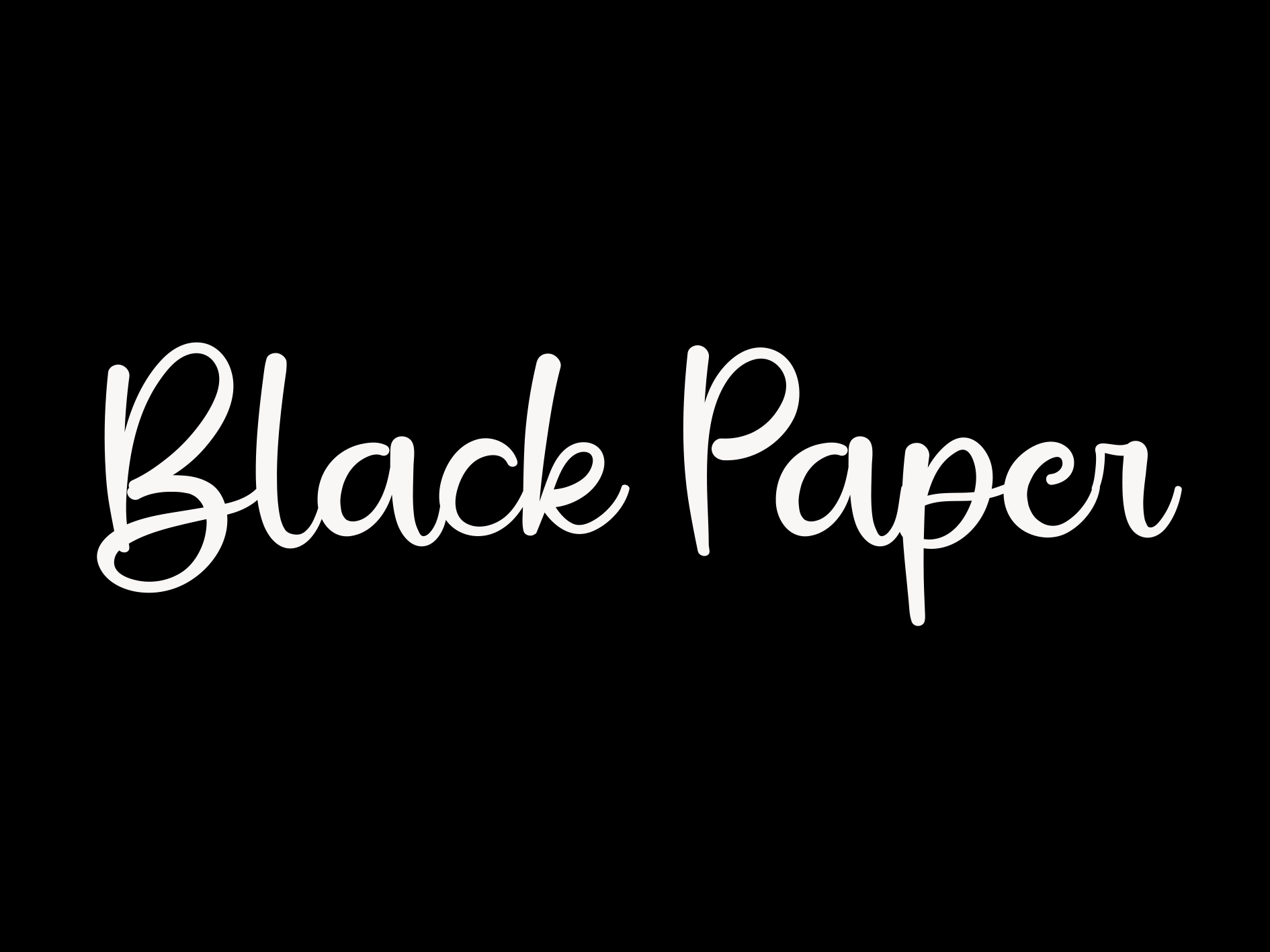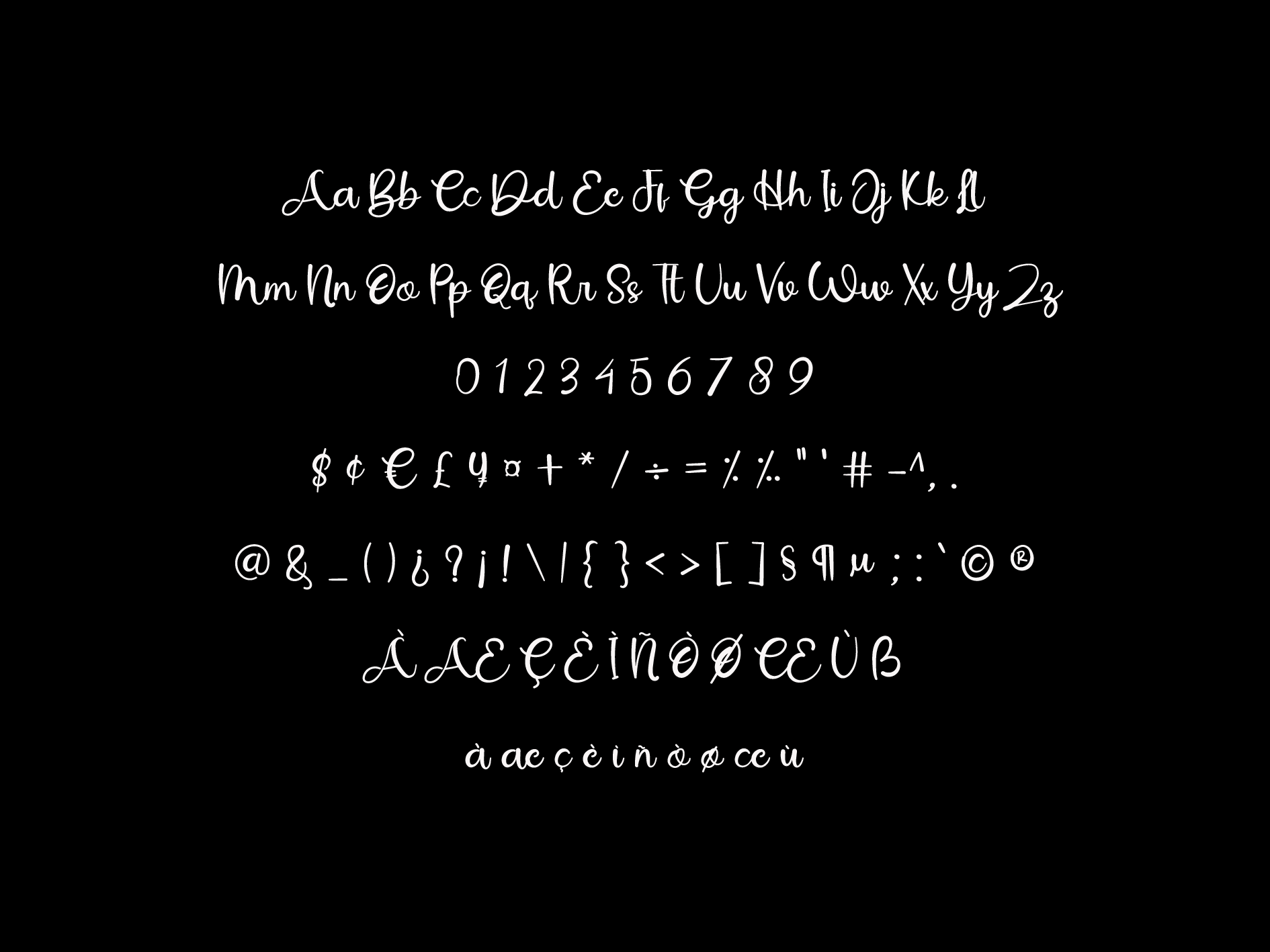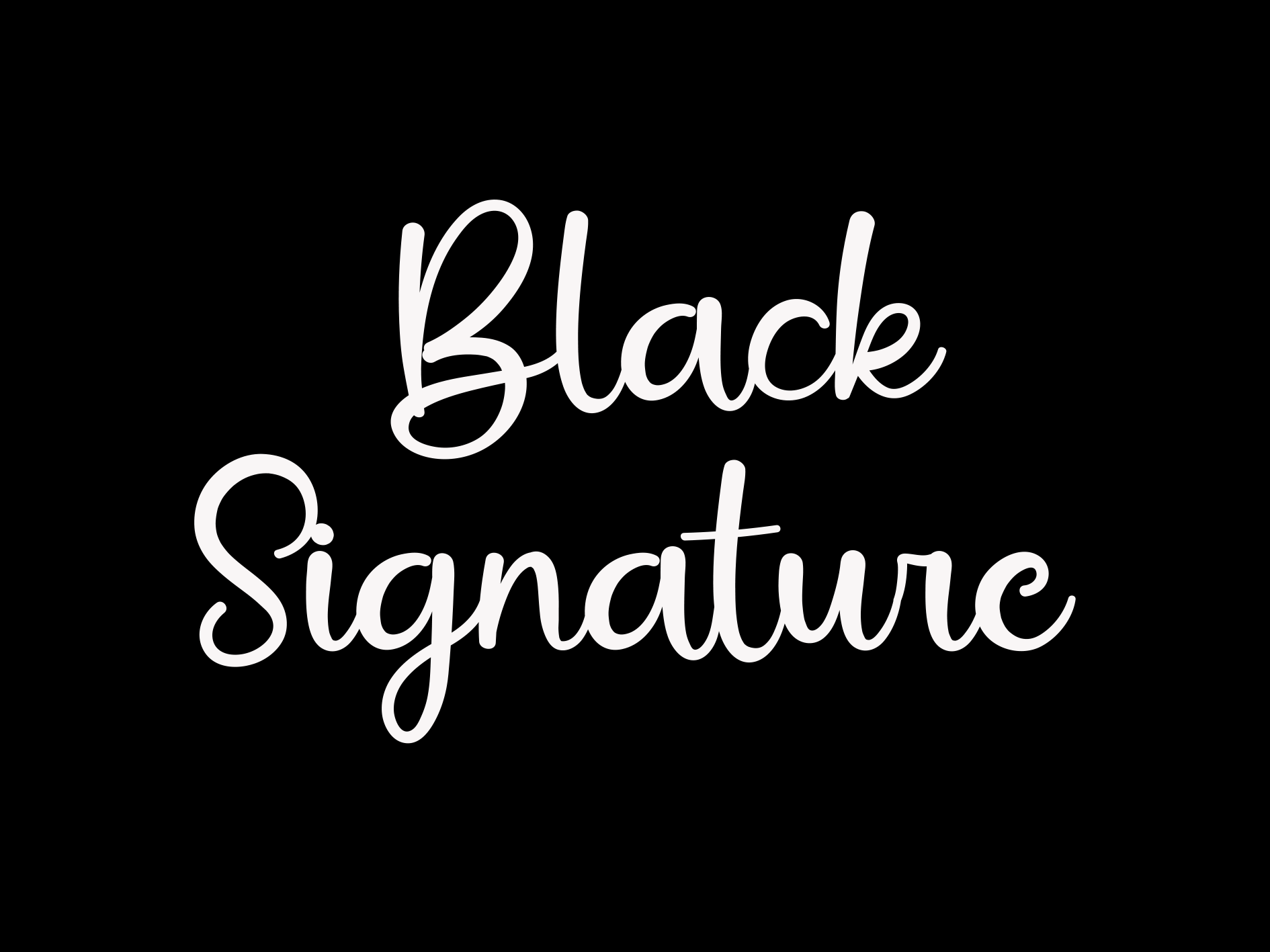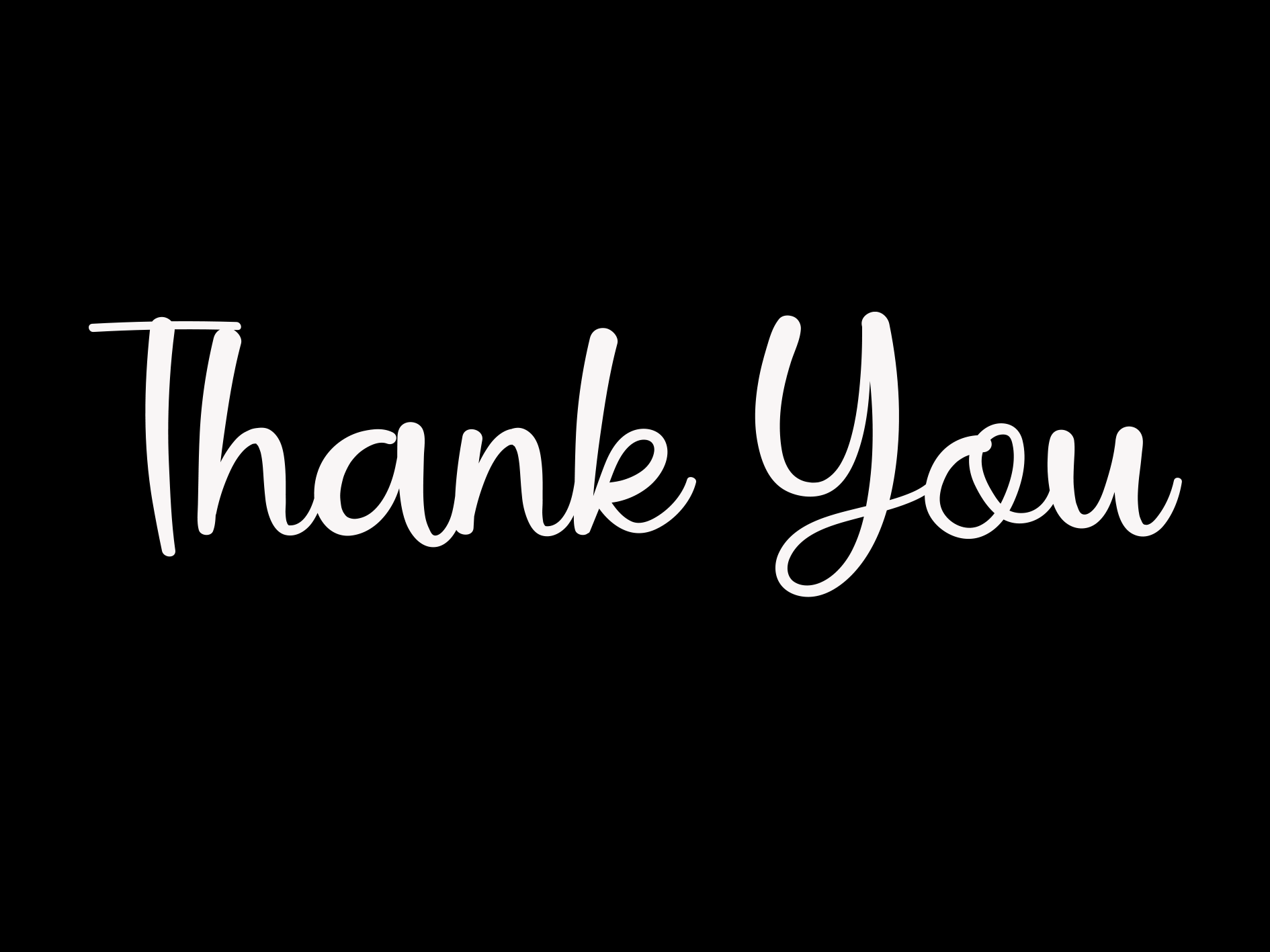
Sumantho Script Font
It’s a delicate handwritten font carefully crafted for a cool and unique design. This font can be used to write letters, invitations, food products, titles and more.